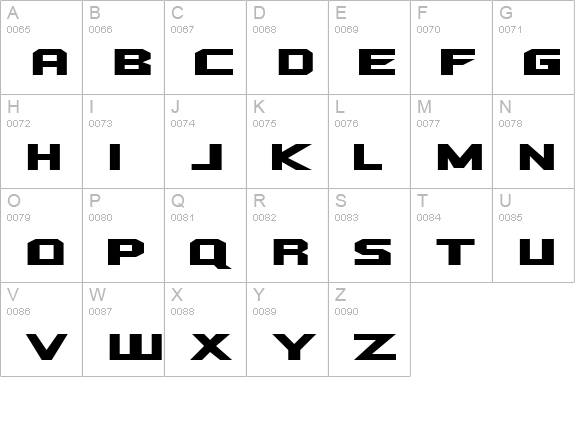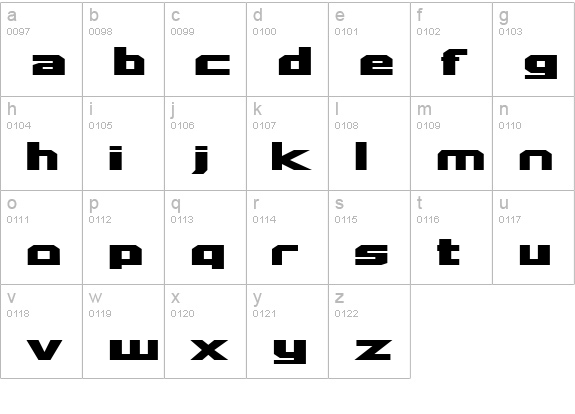
Quadrang Font Details
Quadrang font is an extraordinary typeface that seamlessly blends modern aesthetics with a touch of classic elegance. This versatile font, with its clean lines and geometric shapes, is perfect for a wide range of design projects, from sleek and sophisticated logos to eye-catching headlines and captivating typography. With its precise and well-balanced letterforms, Quadrang font exudes a sense of professionalism and refinement. Its bold and strong presence on the page demands attention, making it an ideal choice for branding materials, posters, and signage. What makes Quadrang font even more appealing is that it is freely available to download at FontsMarket.com. This means that designers and typographers alike can access this remarkable font without any cost, allowing for endless creative possibilities without breaking the bank. Whether you are working on a personal project or a client assignment, Quadrang font is sure to elevate your designs to new heights. Its versatility and timeless appeal make it a must-have addition to any font library. So, why wait? Head over to FontsMarket.com and experience the power and beauty of Quadrang font for yourself.